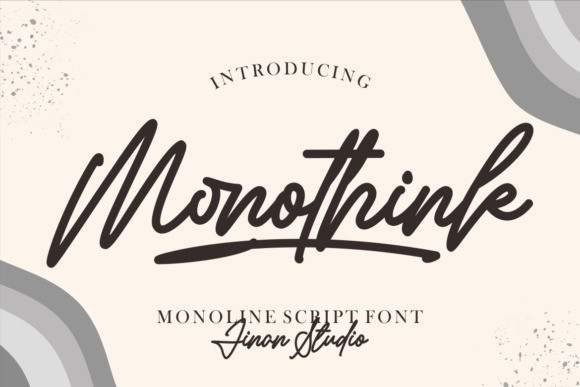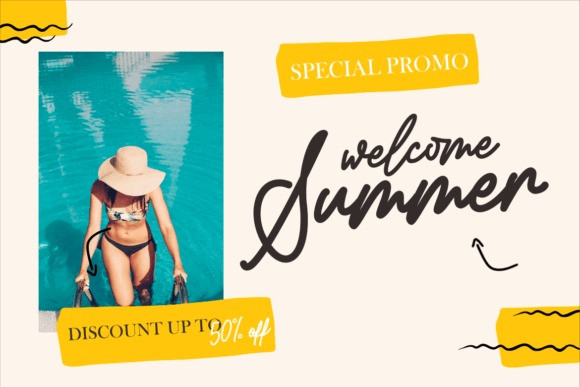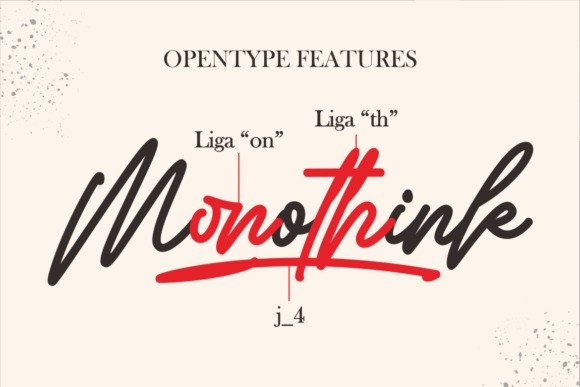
Monothink Font
Monothink is a stylish and modern monoline handwritten font, suitable for a wide spectrum of applications. From greeting cards to headlines, this font will guarantee a romantic touch to each of your creations! Monothink is PUA encoded which means you can access all of the glyphs and swashes with ease.